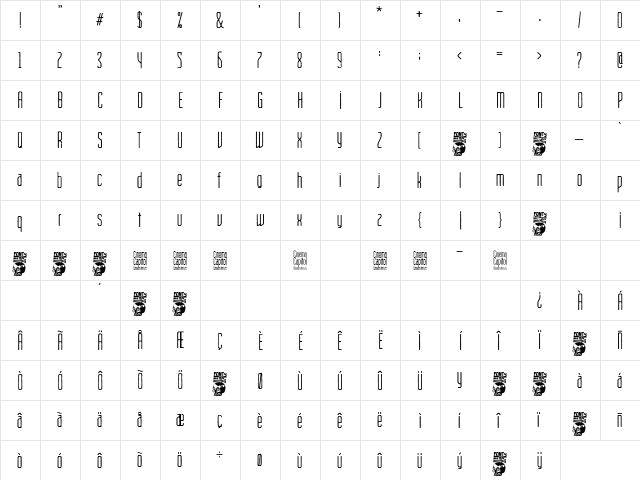
Cinema Capitol Regular Font Preview
Cinema Capitol Regular
Cinema Capitol Regular Font Details
| Designer | Woodcutter Manero |
Design Context for Cinema Capitol Typeface
Cinema Capitol offers clean, dependable letterforms without strong stylistic allegiance, making it a practical choice for designers who need flexibility.